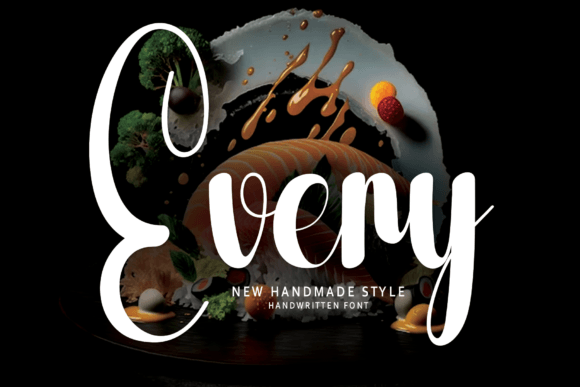
Unleashing the Joy of Handwritten Touch
Remember the last time you sat down with a pen and paper, letting your thoughts flow freely onto the page? The scratch of the pen, the gentle curve of the letters, and the sense of connection to the words as they take shape – it’s a feeling that’s hard to replicate in a digital world. But what if you could bring that same warmth and personality to your designs?
Enter Every Font, a sweet and friendly handwritten font that’s perfect for adding a fun touch to your projects. Whether you’re crafting wedding invitations, designing cards, or working on any other creative endeavor, Every Font is the ideal choice. With its fresh and neat aesthetic, this font is sure to bring a smile to your clients’ faces and a sense of joy to your designs.
For designers, Every Font is a valuable tool in their creative arsenal. Its versatility and charm make it an excellent addition to any project, and its friendly demeanor ensures that it pairs well with a wide range of styles and themes.
Designer Review: Every Font